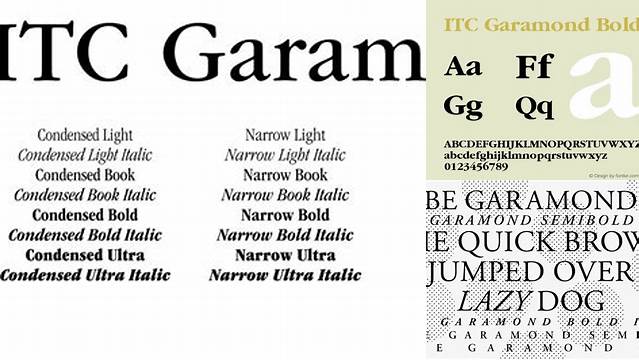
Hey design enthusiasts and typography lovers! Are you on the hunt for that perfect, classic serif font to elevate your next project? Well, you've likely stumbled upon or are actively searching for the ITC Garamond book free download. It's a font that oozes sophistication, history, and timeless elegance. But before we dive deep into where you might find it and how to best use it, let's talk about what makes ITC Garamond so special. This isn't just any old typeface; it's a modern interpretation of a historical masterpiece. Designed by Tony Stan in the 1970s for the International Typeface Corporation (ITC), it draws inspiration from the original Garamond typefaces cut by Claude Garamont in the 16th century. Stan's version offers a more robust and versatile character set, making it incredibly popular for book design, branding, and editorial work. The slight modifications ensure better legibility on modern printing and digital screens while retaining that iconic, graceful feel. So, if you're looking for a font that speaks of tradition and quality, ITC Garamond is definitely one to consider. We'll explore the nuances of this beautiful font and guide you through the process of acquiring and utilizing it, ensuring you get the most out of its design potential.
Understanding the Allure of ITC Garamond
What makes ITC Garamond book free download such a sought-after gem? It boils down to its incredible history and refined design. Claude Garamond, a Parisian punchcutter, created the original typefaces in the mid-16th century, and they quickly became the standard for fine printing across Europe. His designs were characterized by their moderate contrast between thick and thin strokes, subtle bracketed serifs, and an overall sense of harmony and proportion. Fast forward a few centuries, and the International Typeface Corporation decided to commission a revival. Tony Stan's goal wasn't just to replicate but to reinterpret. He aimed to create a Garamond that was more durable, more legible, and more suited to the printing technologies and aesthetic sensibilities of the late 20th century. This resulted in ITC Garamond, which features slightly heavier strokes, more pronounced ascenders and descenders, and a wider range of weights and styles than many earlier versions. The open counters (the enclosed negative space within letters like 'o' or 'p') contribute to its excellent readability, making it a fantastic choice for long blocks of text, like those found in books. The italic version is particularly graceful, with flowing strokes that add a touch of flair without sacrificing professionalism. It’s this blend of historical gravitas and contemporary usability that makes ITC Garamond so appealing to designers across various disciplines. Whether you're designing a novel, a corporate annual report, or a high-end magazine, the presence of ITC Garamond instantly lends an air of authority and classic beauty.
Exploring the Nuances of ITC Garamond's Design
Let's get a bit more granular about why ITC Garamond book free download is such a masterclass in typography. Tony Stan's genius in crafting ITC Garamond lies in the subtle yet impactful adjustments he made to the original Garamond principles. He increased the x-height, meaning the height of lowercase letters like 'x' relative to the capitals, which significantly boosts legibility, especially at smaller sizes. This is crucial for extended reading, like in novels or academic texts. The serifs, those little decorative strokes at the ends of letterforms, are slightly more robust and less delicate than in some older Garamonds, offering better definition and preventing them from becoming too faint in reproduction. Also, the contrast between thick and thin strokes, while still present and a hallmark of the Garamond style, is managed carefully. It's enough to give the typeface its characteristic warmth and sophistication but not so much that it causes eye strain during long reading sessions. The italics are particularly noteworthy. They are not simply slanted versions of the roman but are designed with their own distinct character, often featuring more calligraphic influences and a delightful flow. This makes them perfect for emphasis, quotes, or adding a touch of elegance to headings. The overall personality of ITC Garamond is one of refined intelligence, trustworthiness, and enduring style. It’s a font that doesn’t shout; it speaks with quiet confidence, making it ideal for projects where substance and clarity are paramount. Understanding these design elements helps appreciate why designers often seek out this specific iteration of Garamond for their most important work.
The Legacy of Garamond Typefaces
Before we delve further into the specifics of ITC Garamond, it’s essential to appreciate the monumental legacy from which it springs. When we talk about ITC Garamond book free download, we're referencing a type family with roots stretching back to the Renaissance. Claude Garamont (or Garamond, as he is more commonly known), a French punchcutter and type designer active in the 16th century, created a style of type that profoundly influenced Western typography. His designs were inspired by the humanist minuscule script of the Italian Renaissance and the Roman square capitals. Garamond's types were renowned for their clarity, grace, and balanced proportions. They represented a departure from the heavier, more ornate Gothic (or Blackletter) scripts that were prevalent at the time, offering a cleaner, more readable alternative that was perfectly suited for the burgeoning printing industry. Garamonds' typefaces became the benchmark for elegant book printing. They were widely adopted by printers throughout Europe, and their influence persisted for centuries. Many subsequent typefaces have been designed in the Garamond tradition, each offering a slightly different interpretation. However, the core essence – a blend of legibility, classical beauty, and understated sophistication – remains. ITC Garamond, by Tony Stan, is one of the most successful and widely used modern interpretations, adapting this historical ideal for contemporary needs while staying true to its distinguished lineage. It’s this deep historical connection that gives Garamond fonts, including ITC Garamond, their inherent prestige and timeless appeal.
Claude Garamont: The Pioneer of Elegant Typography
When discussing the origins of the ITC Garamond book free download, we absolutely have to tip our hats to the master, Claude Garamont. Seriously, guys, this guy was a legend in the 16th century! He was a French punchcutter and type designer, and his work laid the foundation for what we consider classic serif typography today. Born around 1499, Garamont wasn't just churning out letters; he was crafting them with an artist's precision and a scholar's sensibility. His typefaces were a significant shift from the blocky, heavy Blackletter styles that dominated European printing. Instead, Garamont introduced a lighter, more open, and incredibly readable Roman type, heavily influenced by the humanist scripts he studied. Think elegant curves, balanced proportions, and a certain refined grace that just makes text pleasant to read. His designs were so well-executed and aesthetically pleasing that they were adopted by printers across Europe, becoming the go-to for publishing esteemed literature and scholarly works. The influence of Garamont's work is immeasurable; it set a standard for clarity and beauty in print that echoed through generations. While we now have various digital interpretations like ITC Garamond, each with its unique character, they all owe a debt to the innovation and artistry of Claude Garamont. His pioneering spirit in creating typefaces that were both beautiful and functional continues to inspire designers even today. It’s this historical foundation that gives the Garamond name its enduring power and prestige in the world of typography.
The Genesis of ITC Garamond by Tony Stan
The story behind ITC Garamond book free download isn't just about ancient history; it's also about a brilliant 20th-century revival. Enter Tony Stan, the designer commissioned by the International Typeface Corporation (ITC) in the early 1970s to create a new Garamond. Now, Stan wasn't just copying; he was carefully studying the historical Garamonds and deciding how to best adapt them for modern use. The printing technology of the 1970s was vastly different from the 16th century, and Stan knew that a direct replica might not perform optimally. He wanted to create a Garamond that was robust, legible across various media (print and the nascent digital displays), and possessed a full range of weights and styles suitable for contemporary design needs. Stan's approach involved meticulous attention to detail. He adjusted proportions, increased the x-height for better readability, and ensured the contrast between thick and thin strokes was balanced for clarity without sacrificing elegance. The result was ITC Garamond – a typeface that honors its heritage while embracing modernity. It became an instant success, particularly favored for book publishing, editorial design, and corporate identity due to its sophisticated yet highly functional nature. Stan's rendition successfully captured the spirit of Garamont while making it a practical and beautiful choice for designers navigating the late 20th century and beyond. It’s this thoughtful adaptation that makes ITC Garamond stand out.
Tony Stan's Design Philosophy for ITC Garamond
When Tony Stan embarked on creating ITC Garamond book free download, he wasn't just aiming for a historical pastiche; he was injecting a specific design philosophy into a time-honored model. His primary goal, as part of ITC, was to produce typefaces that were not only beautiful but also highly functional and commercially viable for the era. Stan recognized the enduring appeal of Garamond but also understood the limitations of earlier versions when faced with new printing technologies and evolving aesthetic tastes. His philosophy centered on enhancing legibility and versatility. This meant strategically increasing the x-height to ensure readability in smaller sizes and on lower-resolution screens. He also paid close attention to the optical qualities, ensuring that the contrast in strokes was just right – visible enough to provide elegance, but not so extreme as to cause fatigue. Furthermore, Stan aimed to create a comprehensive type system. This involved developing a range of weights (from light to bold) and styles (roman, italic, perhaps even display variants) that would allow designers to work flexibly across different applications, from body text to headlines. He wanted ITC Garamond to be a workhorse, a reliable and sophisticated choice for a wide array of design projects. His approach was one of respectful modernization, preserving the soul of the original Garamond while optimizing it for the demands of contemporary design. This thoughtful process is why ITC Garamond remains so highly regarded.
Adapting Garamond for Modern Mediums
The quest for a ITC Garamond book free download often stems from its remarkable ability to bridge the gap between historical aesthetics and modern application. Tony Stan’s design for ITC Garamond was a deliberate effort to make this classic typeface shine in contemporary contexts. Think about it: 16th-century typefaces were designed for metal type and letterpress printing. While beautiful, they might not always render perfectly on a high-resolution digital display or withstand the rig press of a modern offset printer. Stan’s adjustments – like the increased x-height, slightly more robust serifs, and careful stroke contrast – were precisely aimed at improving legibility and rendering quality across these newer mediums. This meant that ITC Garamond could be used for body copy in a glossy magazine, for branding on a website, or for the text of an e-book, and still look crisp and elegant. It maintained the sophisticated, traditional feel that people associate with Garamond, but with added resilience and clarity. This adaptability is a huge part of its enduring popularity. Designers can rely on ITC Garamond to convey a sense of quality and heritage without appearing dated or difficult to read. It’s a testament to Stan’s skill that this typeface feels as relevant and functional today as it did when it was first released, seamlessly integrating into the digital age while honoring its classical roots.
The Role of ITC Garamond in Book Design
When you're talking about a ITC Garamond book free download, you're practically talking about a cornerstone of modern book design. Seriously, guys, this font is everywhere in the publishing world, and for good reason! Its history, stemming from Claude Garamont's Renaissance designs, gives it an air of timeless authority and intellectual depth. But it's Tony Stan's 20th-century interpretation for ITC that truly made it a powerhouse for book typography. Stan's adjustments – like the increased x-height and refined stroke contrast – make ITC Garamond incredibly readable, even in long passages of text. This is absolutely crucial for a book, where readers can spend hours immersed in the words. The font strikes a perfect balance: it's elegant and sophisticated, lending a certain prestige to the cover and title pages, but it's also incredibly clear and unobtrusive in the body text, allowing the story to take center stage. The various weights and styles available in the ITC Garamond family further enhance its utility. Designers can use a heavier weight for chapter titles, a graceful italic for quotes or emphasis, and the regular weight for the main narrative. This typographic range allows for a cohesive and visually appealing reading experience. Its enduring popularity in book design is a testament to its blend of historical gravitas, aesthetic beauty, and functional readability. It’s a font that simply works for telling stories.